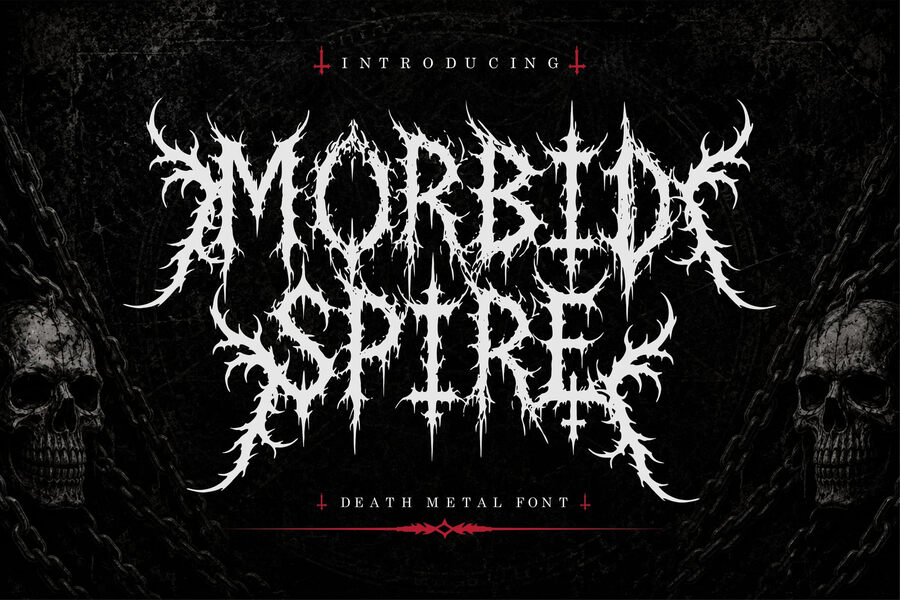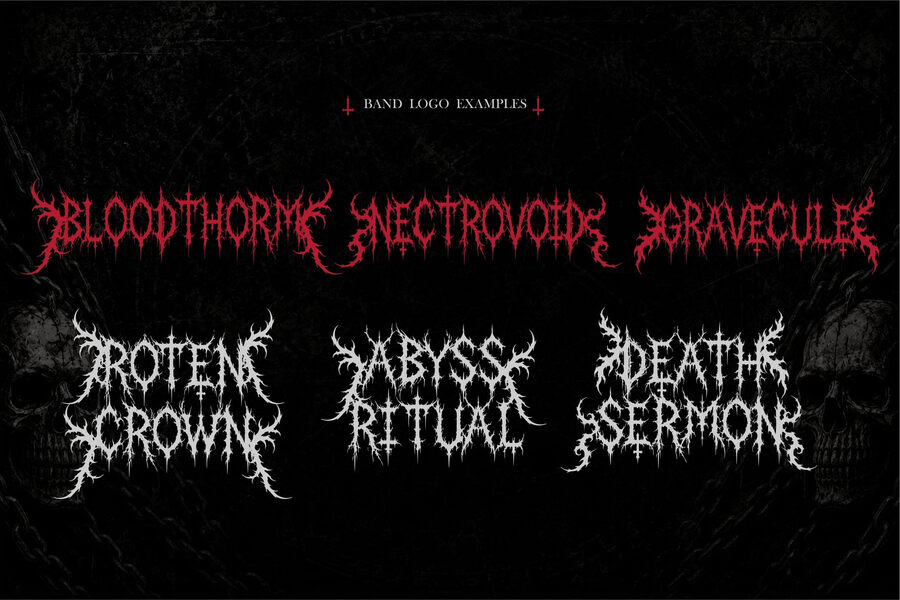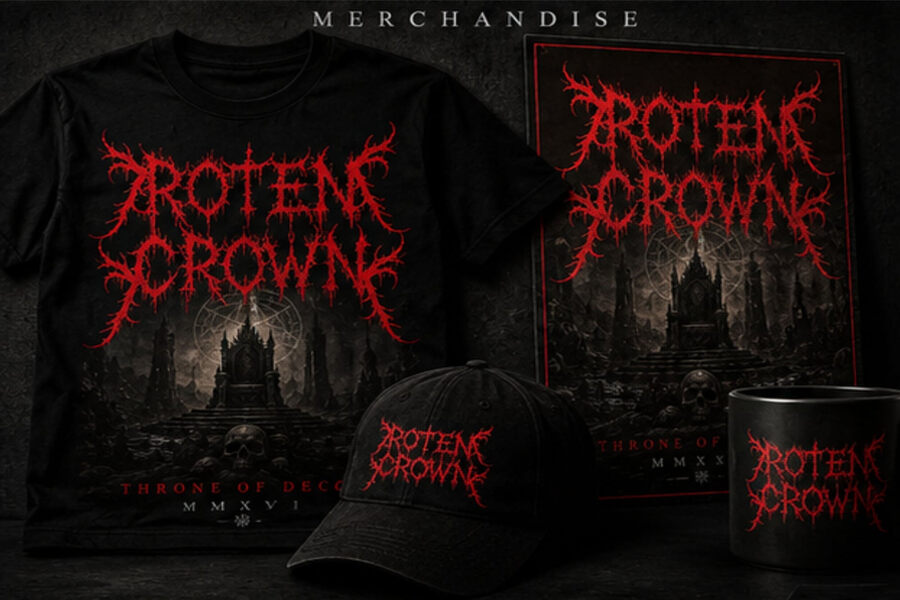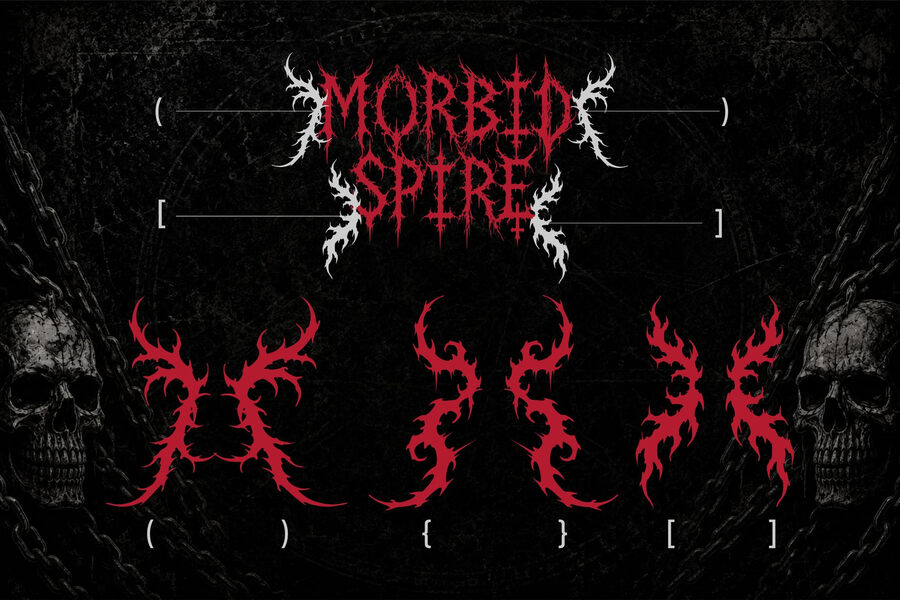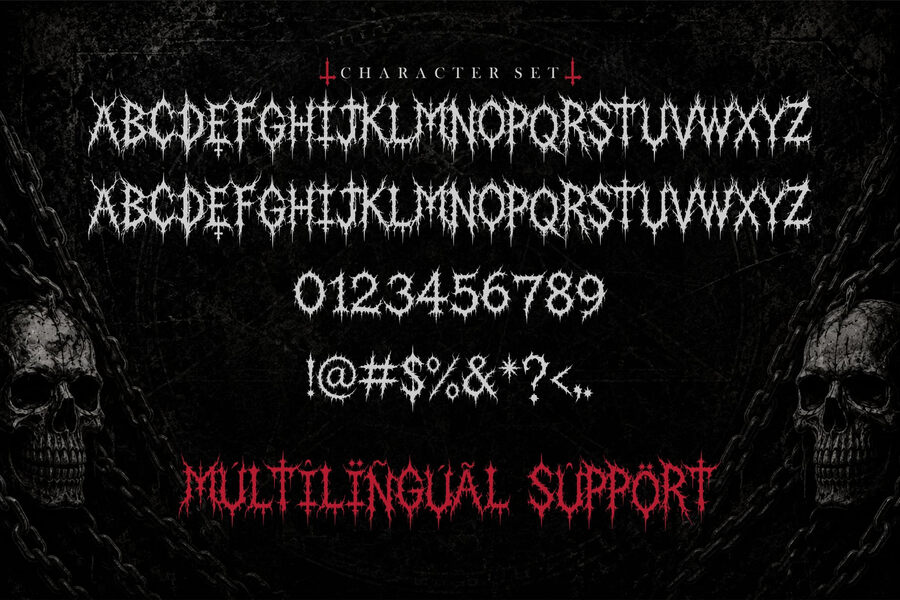
Morbid Spire is a chilling, gothic display typeface defined by tall, jagged ascenders and razor-sharp serifs. Evoking the dark silhouette of a ruined cathedral, its condensed letterforms perfectly balance haunting elegance with striking horror. This imposing font is ideal for horror book covers, heavy metal album art, and dark fantasy titles.